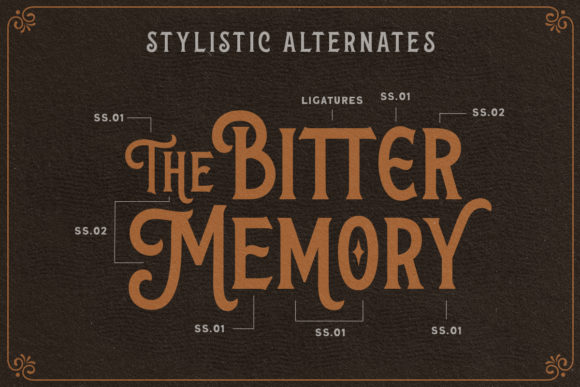
The Wanters Font
The Wanters is an incredibly unique display font. It delivers an incredible vintage aesthetic, so add it to your creative ideas and notice how this font makes them stand out!